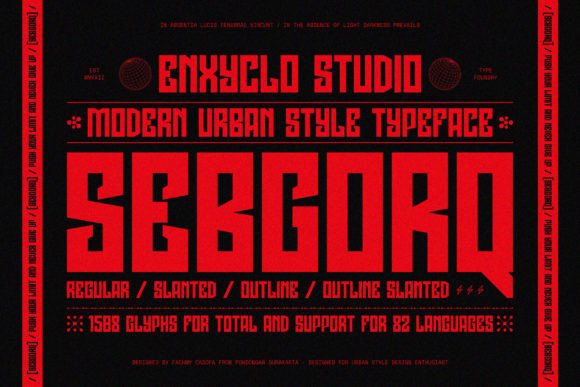
Feast your eyes on Sebgorq, the modern urban display font that's poised to become your new creative darling! This meticulously crafted font is a visual symphony, designed to elevate your designs to dizzying heights. Its versatility knows no bounds: from elegant wedding invitations to bold headlines, billboards, and magazine covers, Sebgorq commands attention wherever it goes.
Picture this: your website adorned with Sebgorq's captivating presence, exuding a sense of sophistication and modernity that leaves visitors spellbound. Its carefully proportioned letters dance across the screen, inviting readers on a journey through your captivating content. Or, envision your brand logo, emblazoned with Sebgorq's distinctive characters, radiating confidence and leaving an unforgettable impression on potential customers.
But Sebgorq's allure extends far beyond mere aesthetics. Its carefully engineered structure ensures readability and clarity, making it the perfect choice for extended blocks of text. Whether you're crafting a thought-provoking article, an informative brochure, or an engaging social media post, Sebgorq delivers your message with unwavering precision.
With Sebgorq in your creative arsenal, you'll discover a font that's as versatile as it is beautiful. Its seamless adaptability to various design styles makes it the perfect companion for any project, from sleek and minimalist to whimsical and expressive. Unleash your imagination and watch as Sebgorq transforms your creative visions into captivating realities.